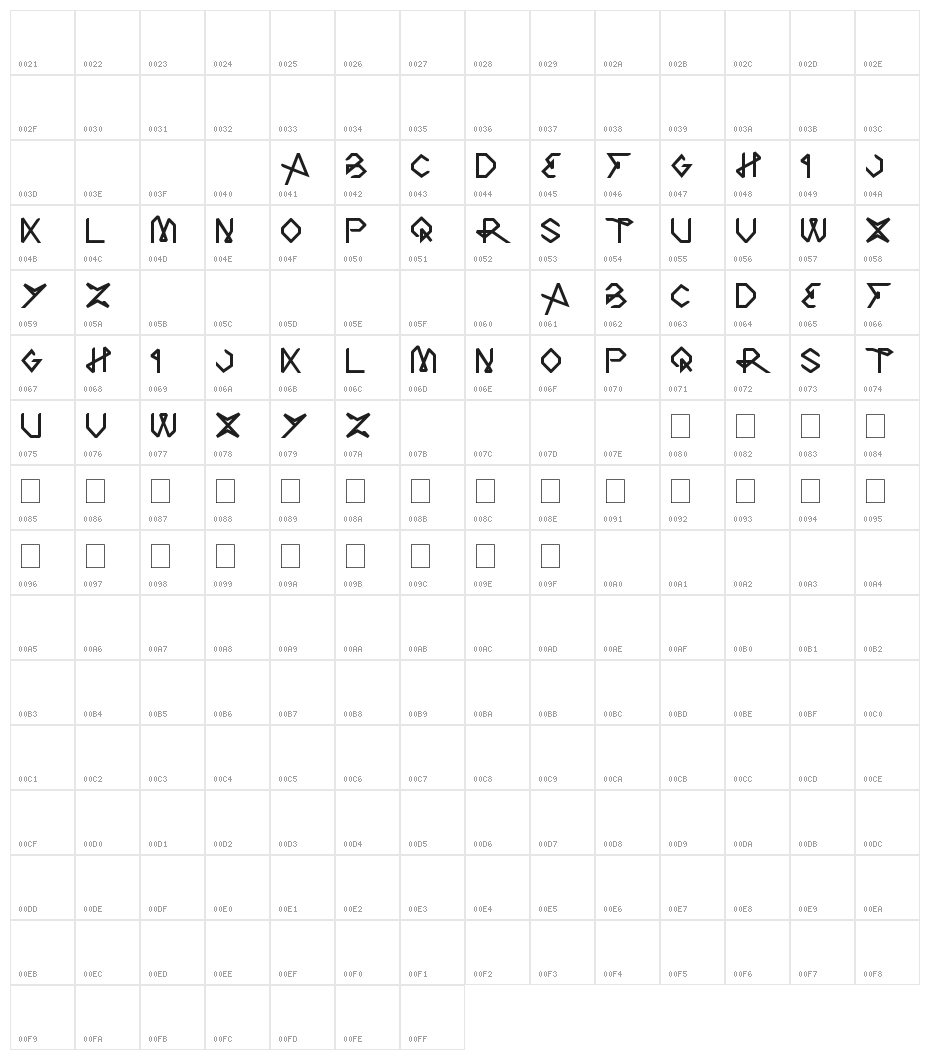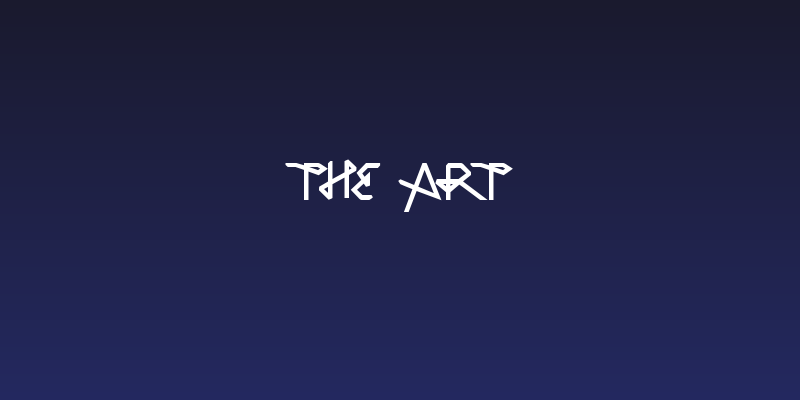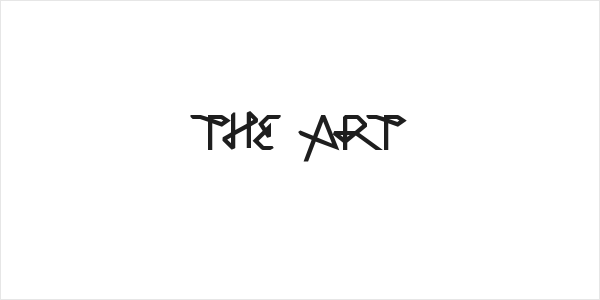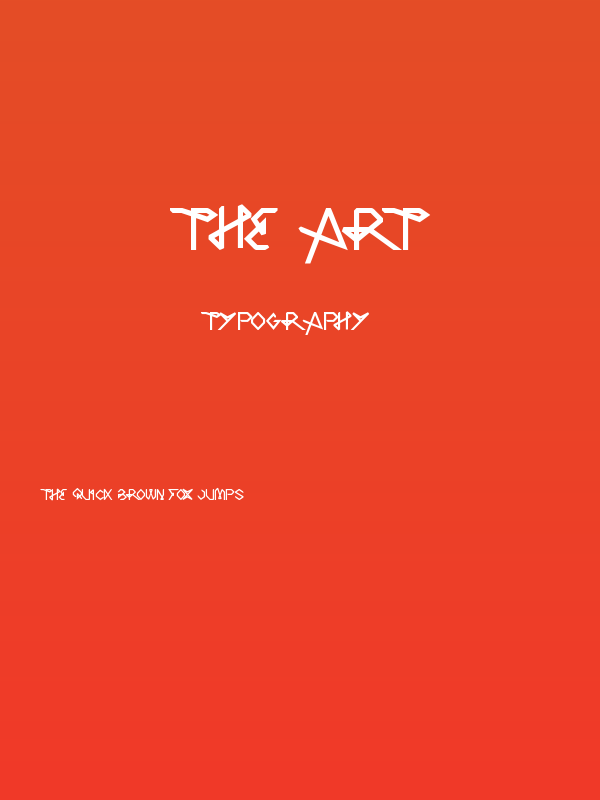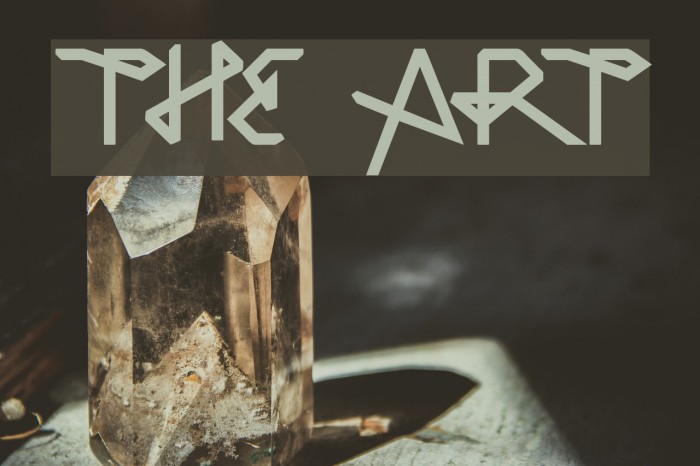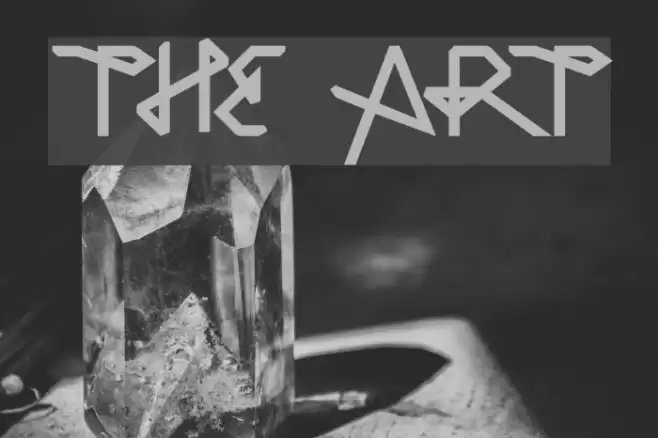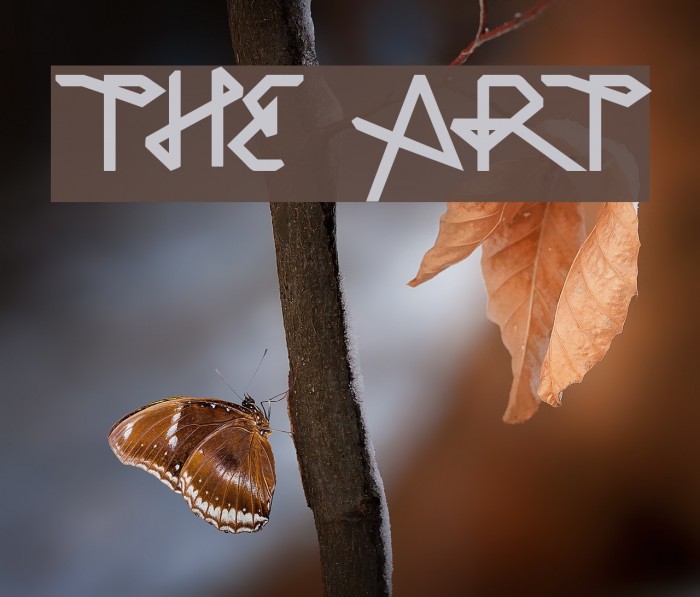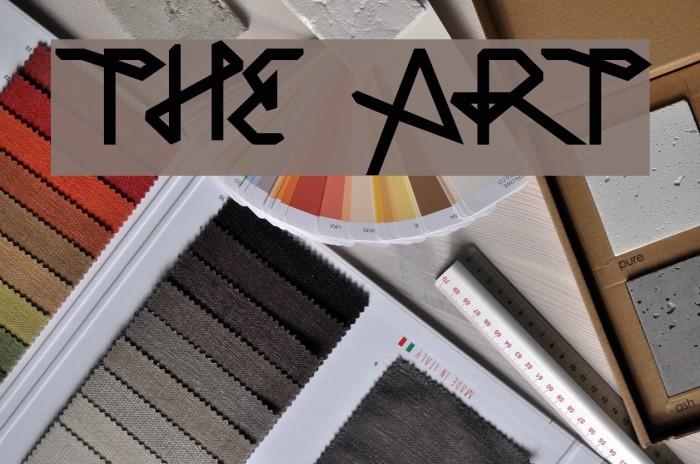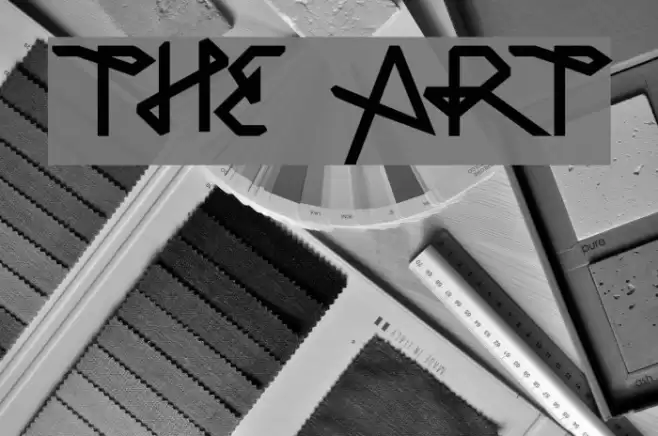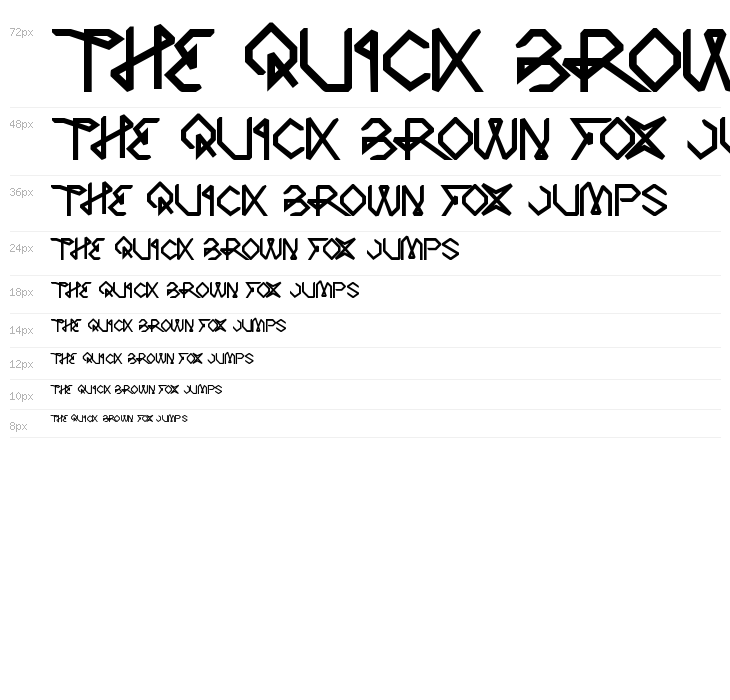
THE ART Font
THE ART Description
This font features a highly stylized, geometric design with angular lines and sharp edges. Each character is crafted with a unique, intersecting line pattern that creates a sense of movement and complexity. The uppercase letters are bold and striking, with a consistent thickness throughout, while the lowercase letters maintain the same angular style, offering a cohesive look. The numbers and special characters follow the same design principles, ensuring uniformity across all glyphs. This font's distinct appearance makes it ideal for projects that require a modern and edgy aesthetic.
| Proposed Projects | Ideal for branding, album covers, posters, and any design needing a modern, edgy look. |